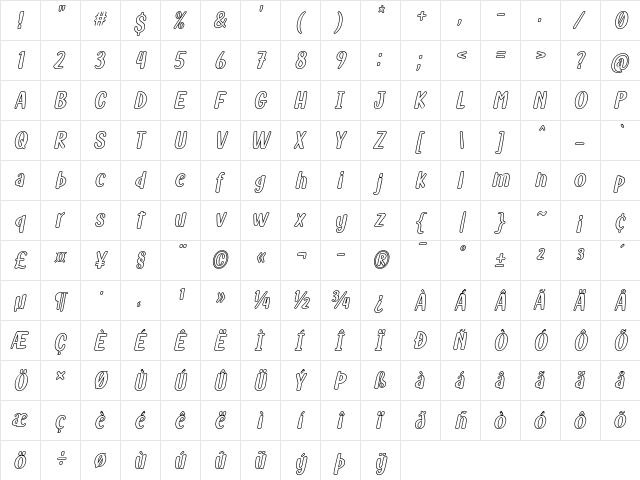
Fish Grill Outline Italic
Design Context for Fish Grill Outline Typeface
Fish Grill Outline is built around its visual character rather than neutral utility — its distinctive forms are designed to make an impression at display sizes. The dynamic lean of this cut emphasises speed and emphasis in any layout.
Font Pairing: Pair with a clean neutral sans-serif for body copy to let Fish Grill Outline's character lead without overwhelming the composition.
Pro Tip: Treat Fish Grill Outline as the centrepiece of your typographic hierarchy. One strong heading set in a decorative face can carry an entire layout.